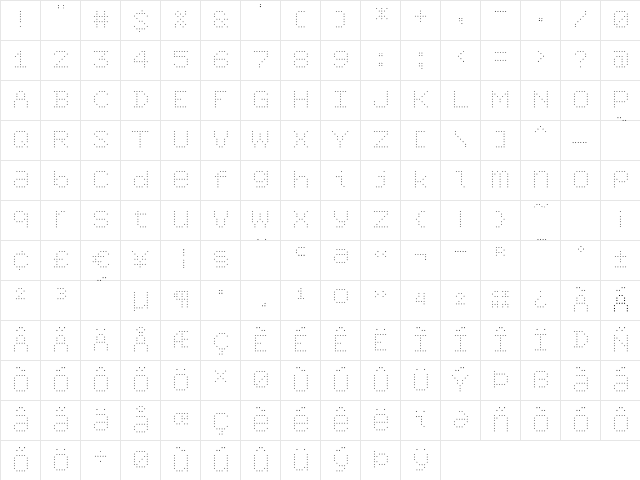
6x7oct Alternate ExtraLight Free Font
6x7oct Alternate ExtraLight
Style: ExtraLight
Foundry: YouWorkForThem
Designer: Michael Cina
6x7oct Alternate Family
Design Context for 6x7oct Alternate
6x7oct Alternate is a composed and adaptable typeface that performs quietly and consistently across a wide range of design contexts. Its slender proportions lend an understated elegance to any composition.
Who designed the 6x7oct Alternate ExtraLight font?